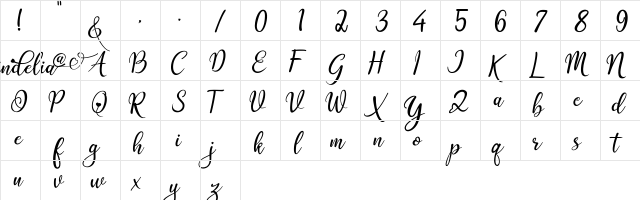
Quindelia Regular
| Foundry | OCSstudio |
| Designer | Oki Candra Setiawan |
Design Context for Quindelia Typeface
Quindelia is a composed and adaptable typeface that performs quietly and consistently across a wide range of design contexts.